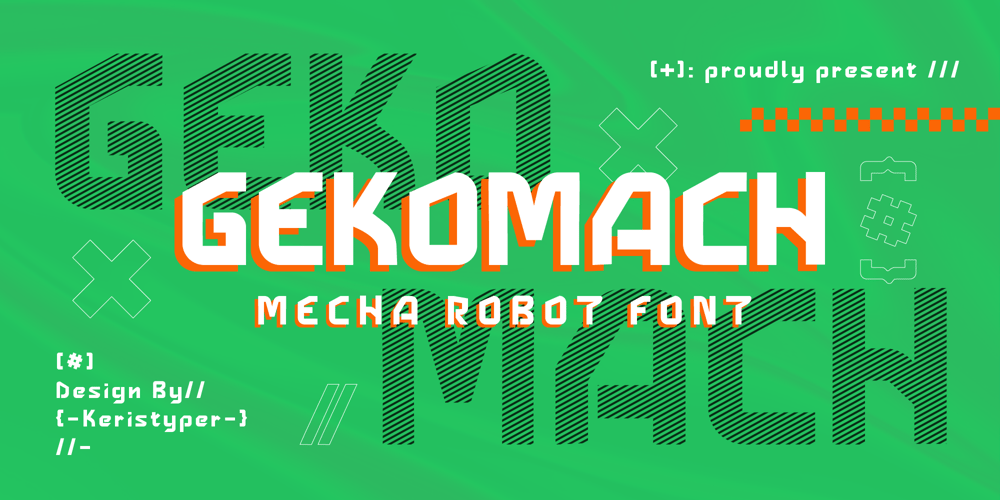
Gekomach Font Family was designed by Tezar Tantular and published by Keristyper Studio. Gekomach contains 1 styles and family package options. Gecomach robotic mecha typeface is inspired by a modern futuristic. This font is good for logo design, Social media, Movie Titles, Books Titles, short text even long text letters, and good for your secondary text font with sans or serif.**Featured:*** Standard Uppercase & Lowercase* Numeral & Punctuation* Multilingual : ä ö ü Ä Ö Ü ß ¿ ¡* Alternate & Ligature* PUA encodedWe recommend programs that support the OpenType feature and the Glyphs panel such as Adobe applications or Corel Draw. so you can use all the variations of the glyphs.Hope you enjoy our fonts!